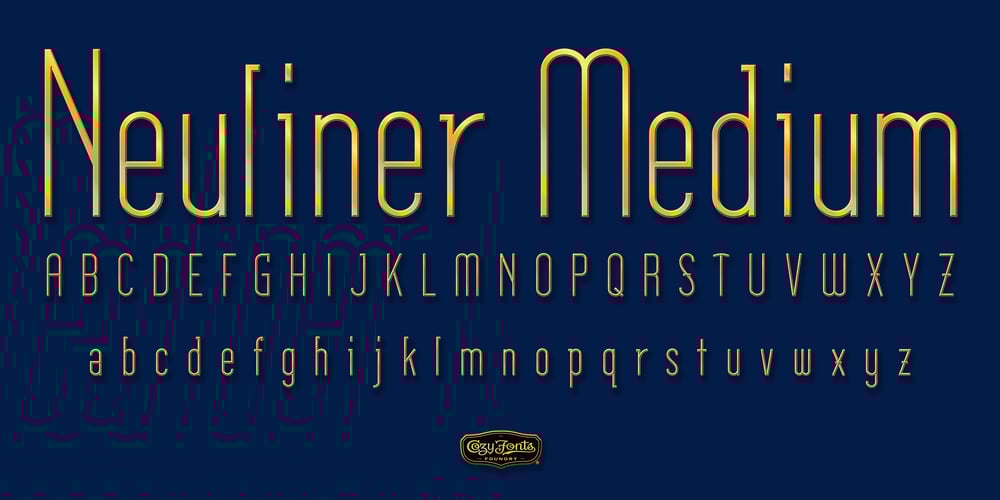
Neuliner Font Family was designed by Tom Nikosey and published by CozyFonts. Neuliner contains 7 styles and family package options. The Neuliner Family is sleek, condensed, extremely legible & flexible available in 7 styles. The inspiration stems from the classic, slender Art Deco era. Designed with a repeated vertical theme Neuliner is consistent from style to style with variations in weight and character. With over 350 glyphs and applying in over 80 languages with Numerals, Dingbats & Euro accents this family is complete. At the time of its first release Neuliner is available in Medium, Bold, Italic, Outline, Drop, Rough, & Rounded. Other styles are in the works. As displayed in the posters, Neuliner works well, in any style, for headlines, by-lines, logos, titles, posters, signage, billboards, ads, main & end titles, monograms, numbering systems, wedding invites and stationary, etc. The Bold style works congruously with the Outline & Drop styles, for either ‘trapped’ or ‘offset’ effects.This family also has its roots and influence in Mid Century influenced architecture and design yet lends its style to contemporary and modern design in the 2020s. The Drop & Rough versions are unique styles that render well in Adobe Illustrator & Adobe Photoshop for use in a myriad of colors and effects. The rough-edged style resembles a stitched and weathered effect, while the drop version plays prominently as headlines in either bright or muted color combinations. The versatile, ever-classic outline style gives any image or photographs an impression of elegance and transparency without sacrificing legibility. Neuliner Rounded embosses and engraves either blindly or foil added with a lasting impression. Neuliner Family from Cozyfonts Foundry.